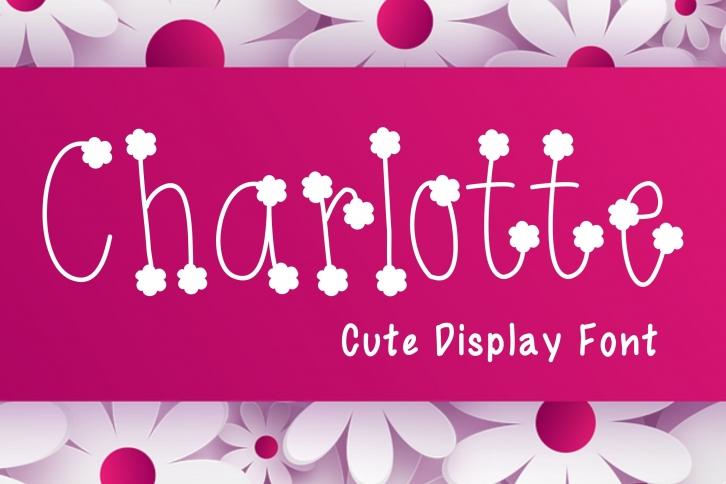
Cute Display is a great font that was designed by JTdigiart. Imagine the amount of combinations you can create using this font! The archive is 21.27 MB and it was released on June 23, 2021. Cute Display looks beautiful on wedding invitations, greeting cards, logos, posters, labels, t-shirt designs, logos, business cards and is perfect for use in ink or watercolor works, fashion, magazines, packaging and food menus, children's books and more!